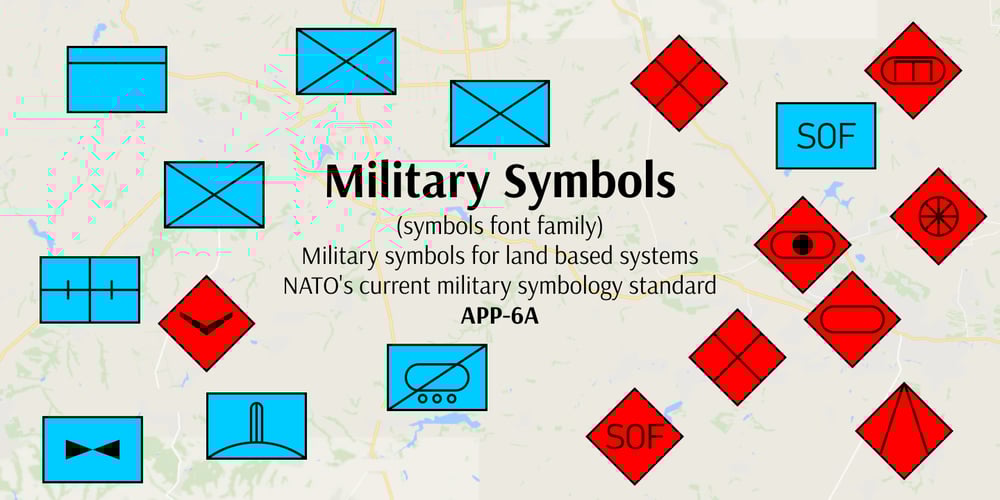
Military Symbols Font Family was designed by Lukyan Turetskyy and published by 2D Typo. Military Symbols contains 3 styles and family package options. NATO Military Symbol is a set of graphic symbols (or ideograms) that are usually used in maps, stands and diagrams to represent military units, targets, actions or any other objects that have a military meaning. This font has been developed based on the APP-6 standards. It incorporates main symbols and similarly to Wingdigs is a set of symbol (not alphabetic) signs. There are four sign sets in the NATO Military Symbol suit. The signs are grouped based on the font style: 1. FRIEND – Military Symbol Regular; 2. HOSTILE – Military Symbol Bold; 3. NEUTRAL – Military Symbol Italic; 4. UNKNOWN – Military Symbol Bold Italic.